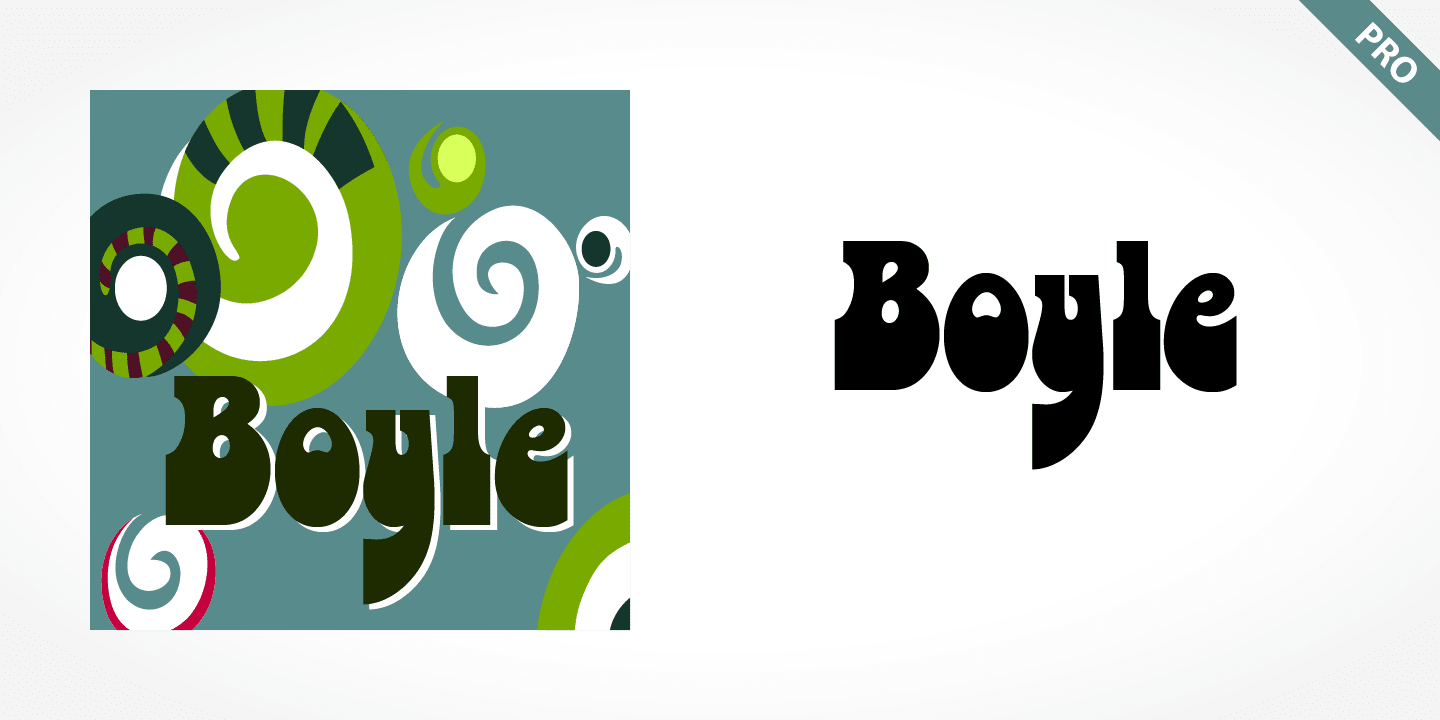
Boyle Pro
Boyle Pro is a display and retro font published by SoftMaker.
Boyle Pro figures reflect the spirit of the seventies. Its distinguishing characteristic is the extreme heaviness of the serifs in the lower third of the characters, a trait which the viewer could associate with the plateau shoes of the 1970s. It’s a carefree, playful typeface that can be found even today on entertainment fliers and retro advertisements. When used sparingly in headlines and slogans, it is a real eye-catcher.